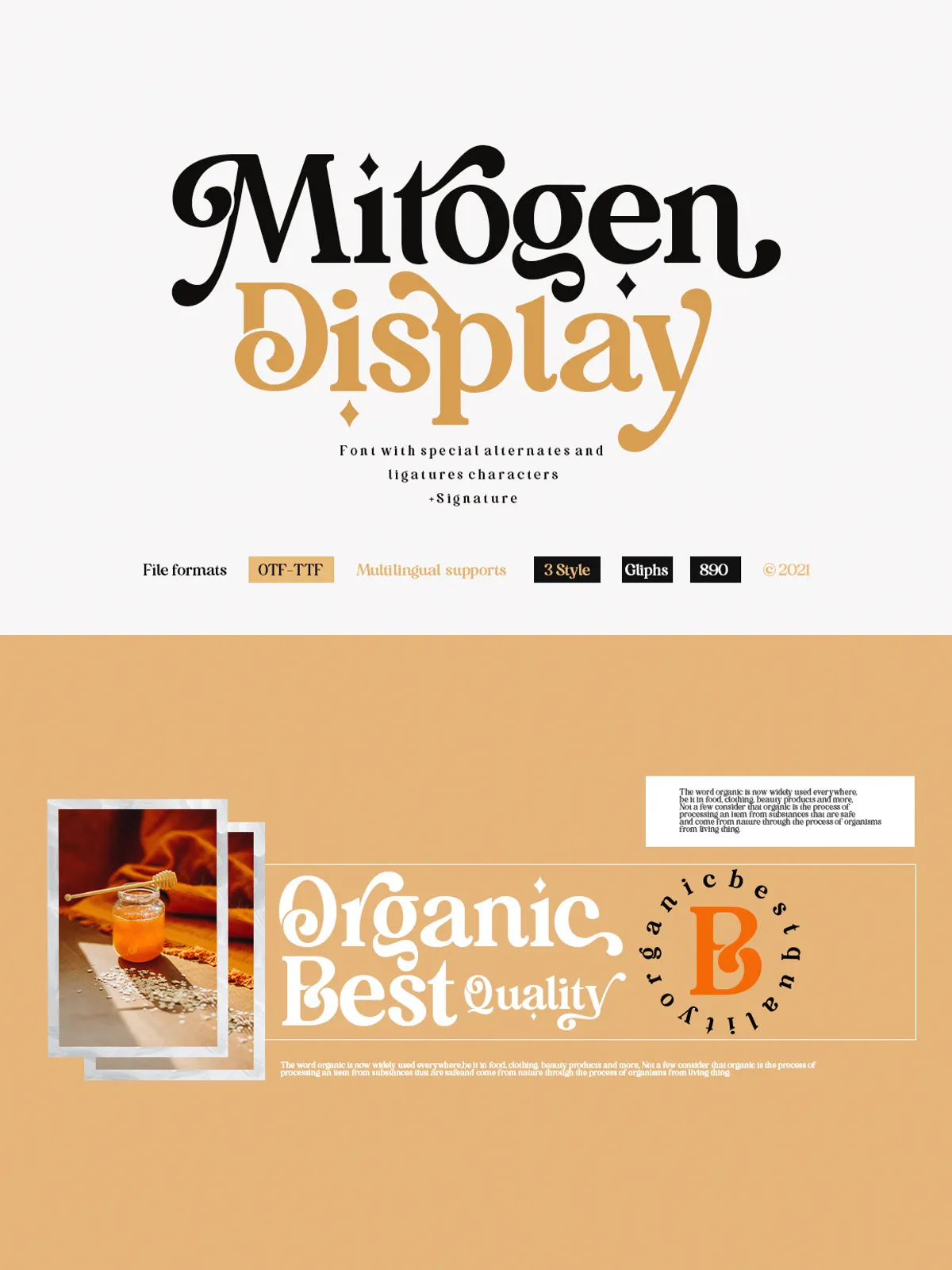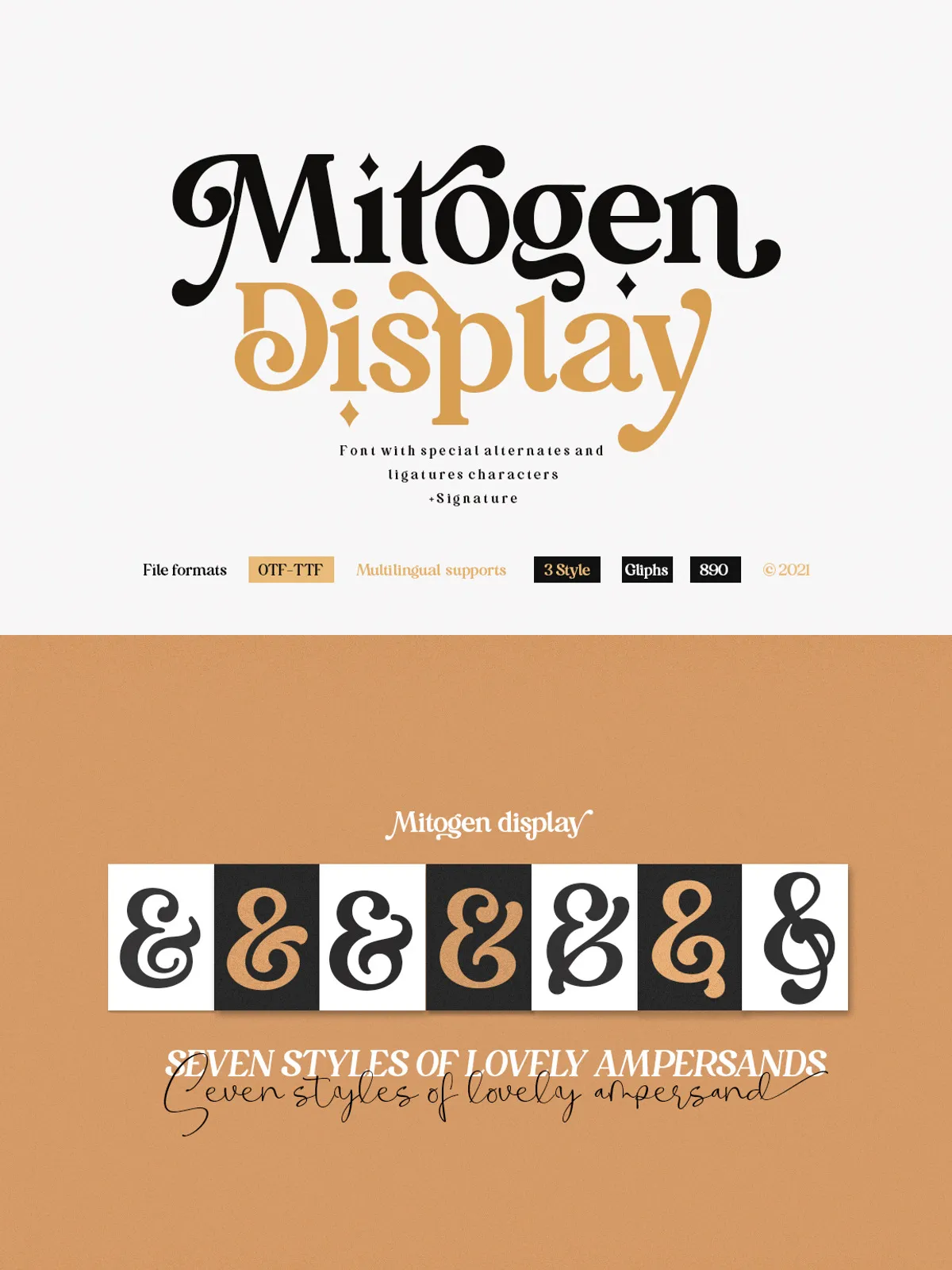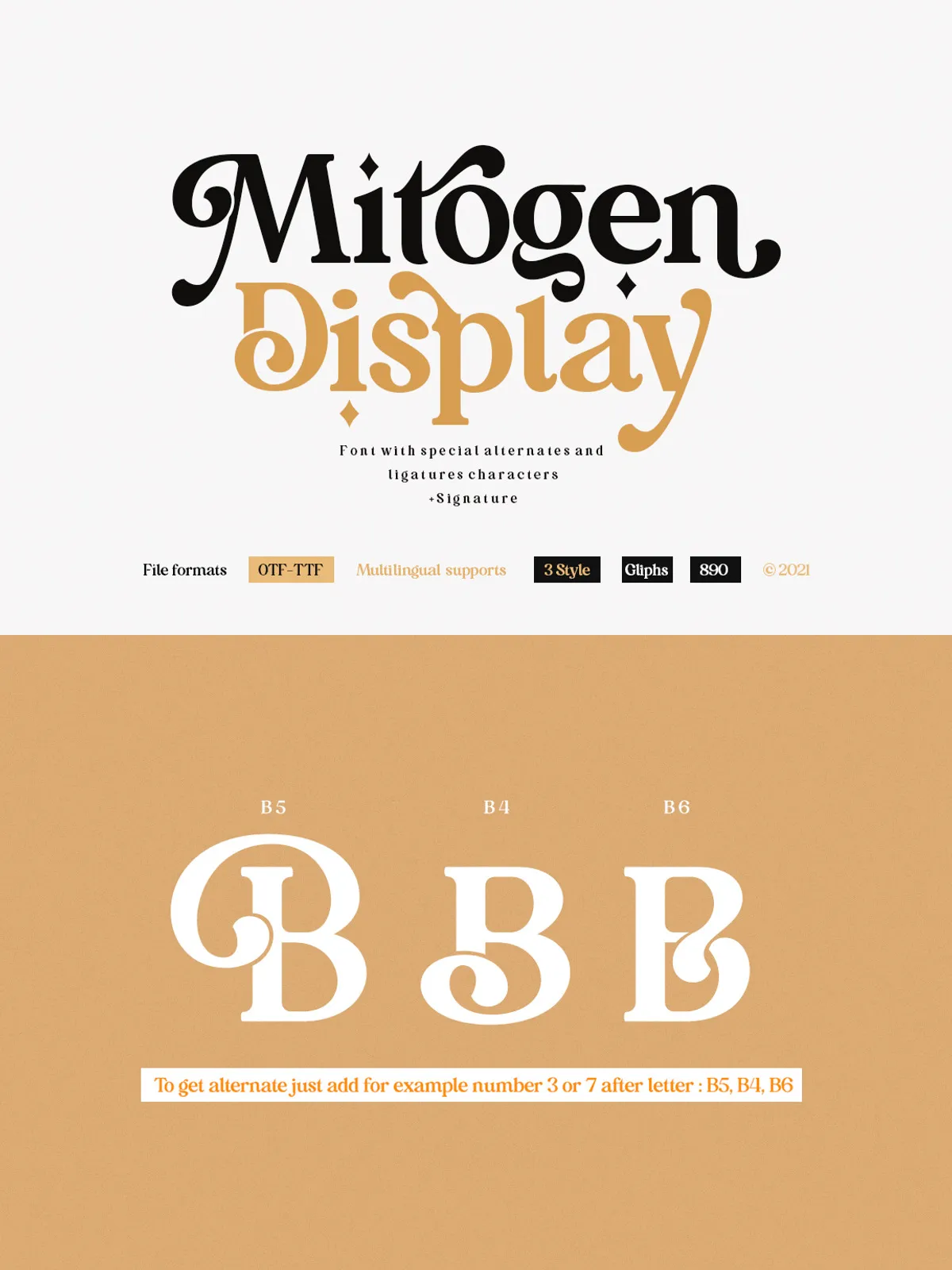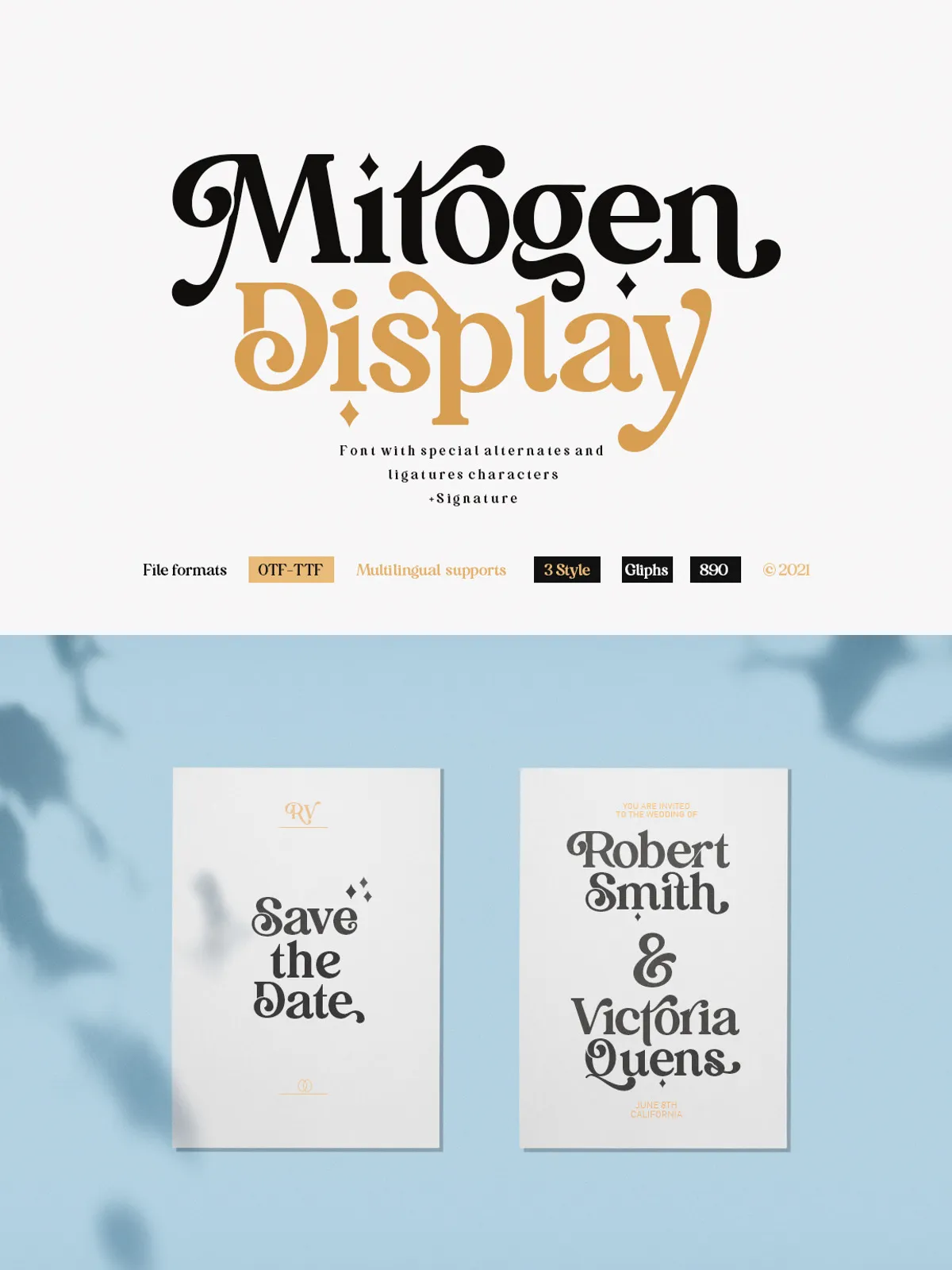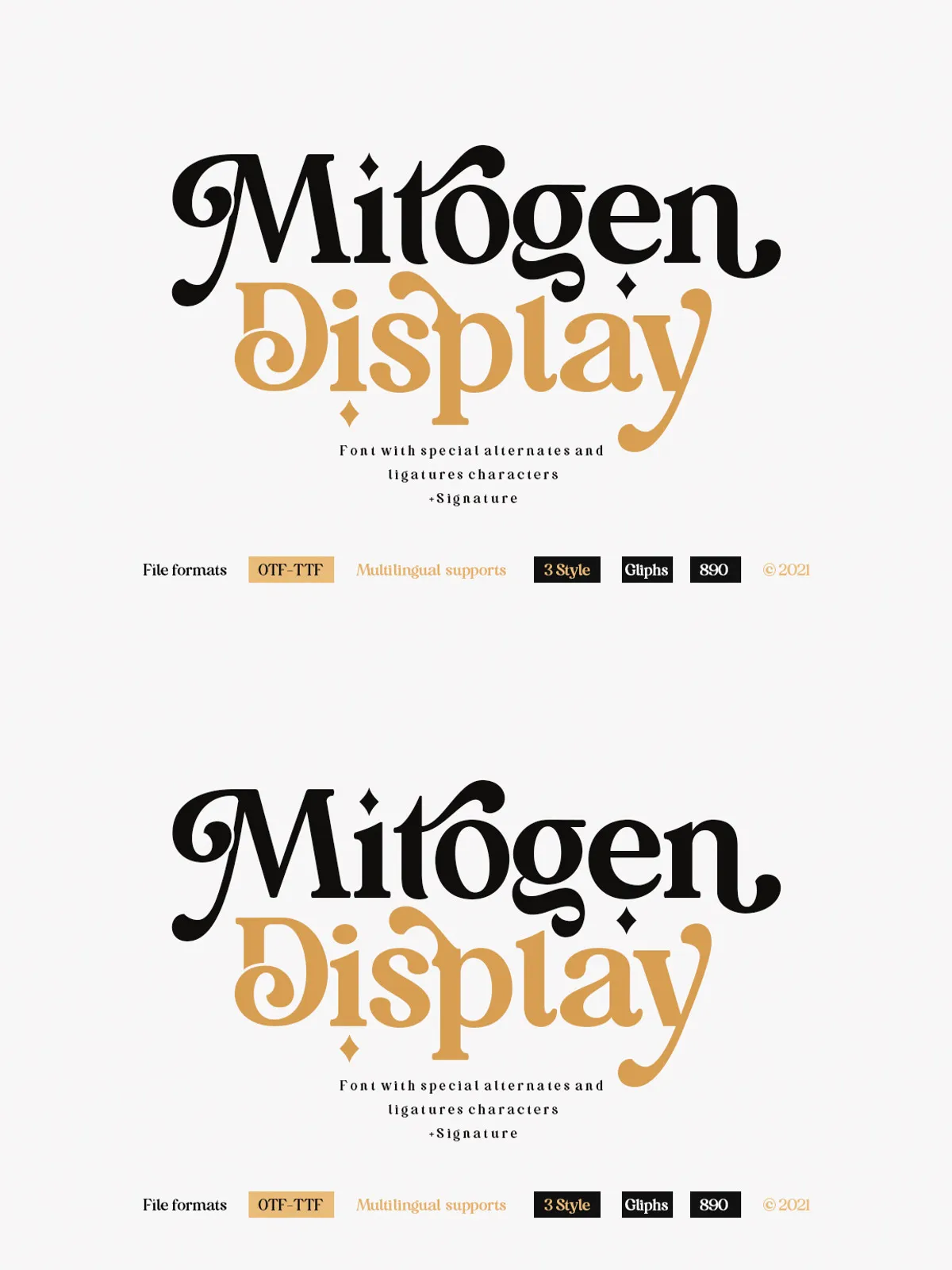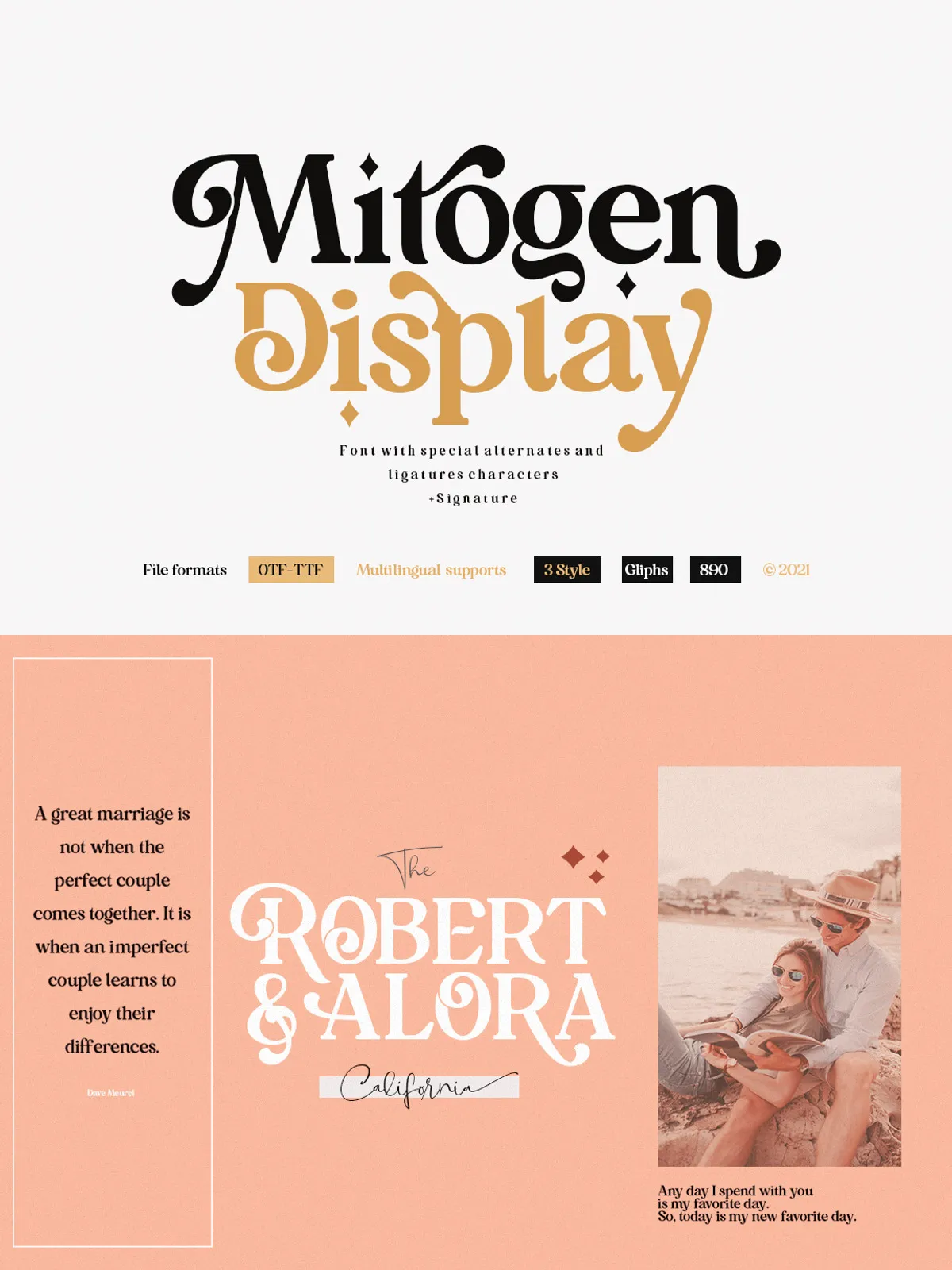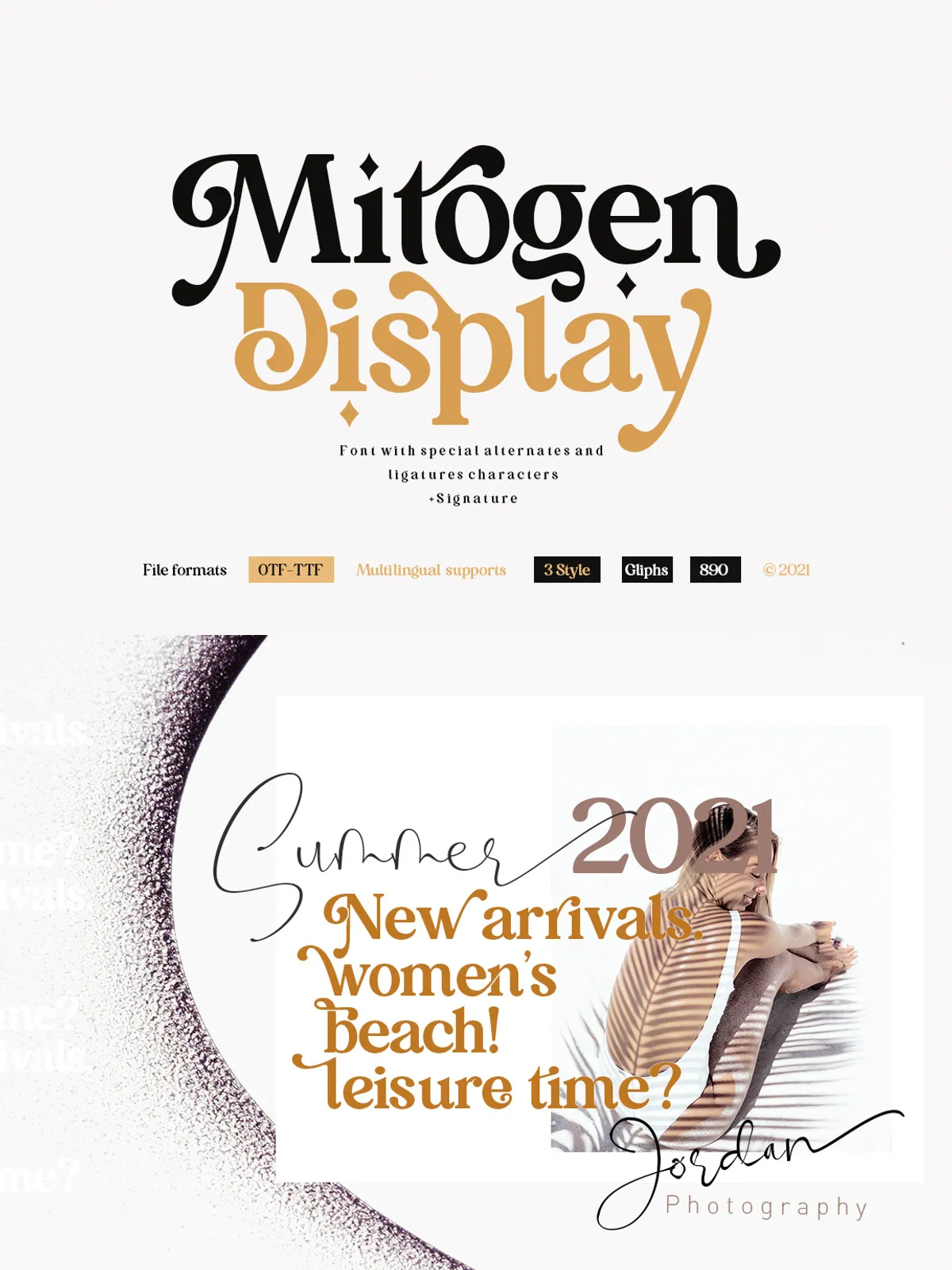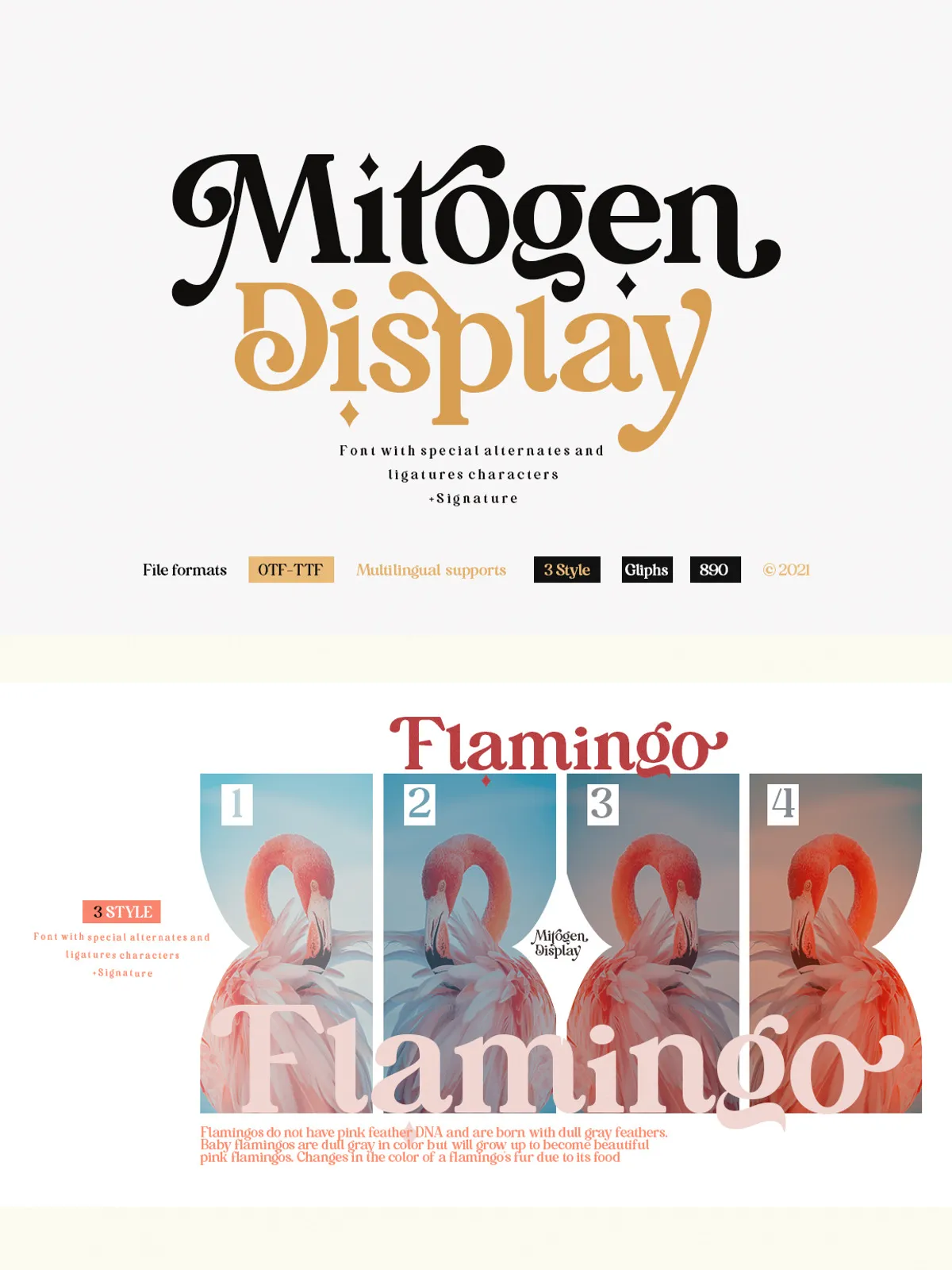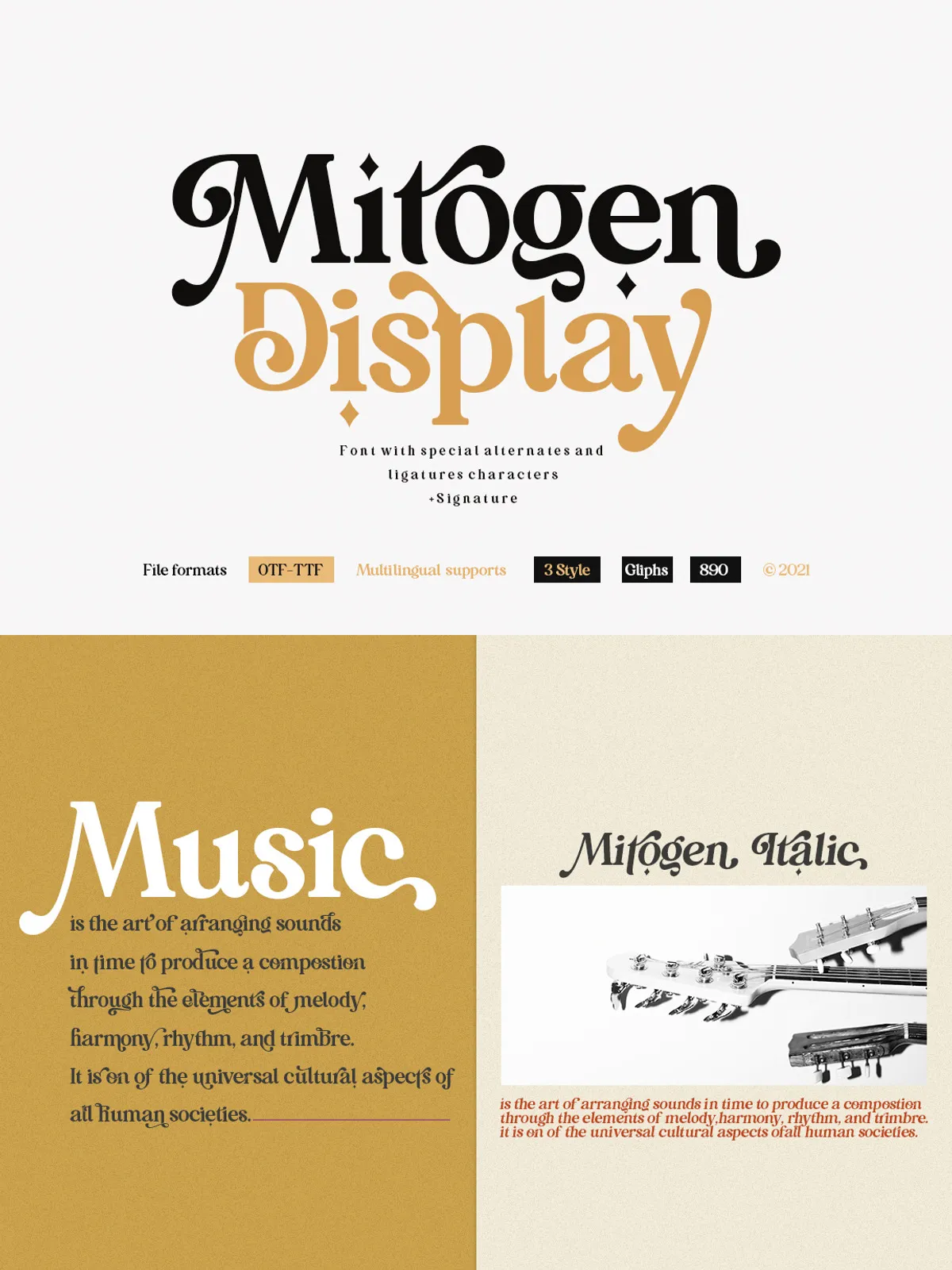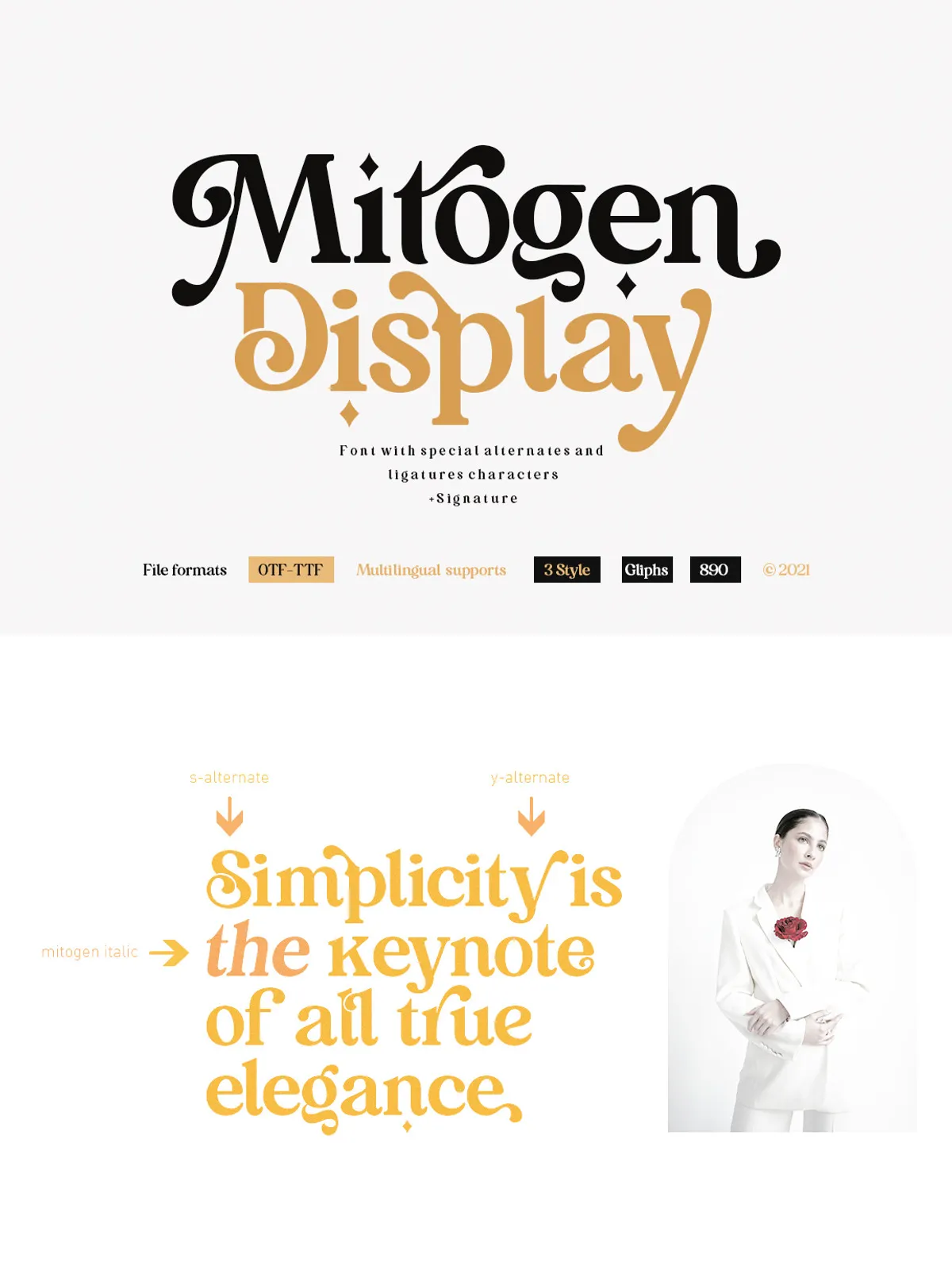
Mitogen Display + Signature
Meet Mitogen Display, a boldly versatile typeface engineered for designers who demand both impact and elegance. Built with flexibility at its core, this font family doesn’t just fit your project — it transforms it. From the delicate charm of wedding invitations to the powerful presence of event posters and the refined identity of brand campaigns, Mitogen Display evolves with your creative goals.
What sets Mitogen apart isn’t just its clean lines and modern presence — it’s the dynamic synergy it creates with its companion, Mitogen Signature. This signature variant is more than a stylistic bonus — it’s a design partner. Use it to add emotional depth, handwritten warmth, or expressive flair that complements the precision of the regular and italic styles. Together, they form a cohesive design ecosystem that allows for seamless integration across layouts.
Professional-Grade Features, Designed for Real-World Workflows
Mitogen Display isn’t just beautiful — it’s powerfully functional. Each file includes advanced typographic tools to elevate your output:
With three distinct styles, you can craft typographic hierarchies that guide the viewer’s eye, define mood, and strengthen brand storytelling — all within a single font family.
• Extensive Character Coverage
It comes equipped with:
• Standard Numerals & Punctuation — Fully optimized for clean text composition and readability.
• Stylistic Alternates — Access unique, alternative glyph forms to avoid repetition and add visual texture.
• Ligatures — Smooth character pairings for improved flow in headings, quotes, and titles.
• PUA-Encoded Characters — Unlock exclusive symbols, decorative elements, and stylistic flourishes for bold creative expression.
Designed to Elevate Every Creative Project
Mitogen Display is not a one-size-fits-all font — it’s a multi-purpose design engine built for versatility across mediums and purposes:
• Magazine & Editorial Design
Use the regular and italic styles for headlines, pull quotes, and captions. The clean, high-contrast structure ensures legibility even at small sizes, while the signature version adds personality to feature inserts and spreads.
• Wedding Invitations & Greeting Cards
Pair the elegant regular style with the handcrafted feel of the signature variant to create invitations that feel personal, heartfelt, and effortlessly stylish. Perfect for modern, minimalist, or romantic themes.
• Branding & Identity Systems
Establish a strong, memorable identity. The consistent proportions and balanced spacing make Mitogen Display ideal for logos, stationery, packaging, and digital assets — all while remaining scalable and adaptable to different formats.
• Poster & Event Design
Command attention with bold, readable display text. The italic and signature variants introduce rhythm and motion, making event posters, music fliers, and exhibition signage stand out in crowded visual environments.
• Digital & Print Applications
• Mitogen Display Regular — The foundation of your design. Sleek, balanced, and instantly recognizable.
• Mitogen Display Italic — For dynamic emphasis, narrative flow, and typographic variety.
• Mitogen Signature — Your creative wildcard — add personality, emotion, and originality to any layout.
• Advanced OpenType Features — Ligatures, stylistic alternates, numerals, punctuation, and PUA-encoded symbols.